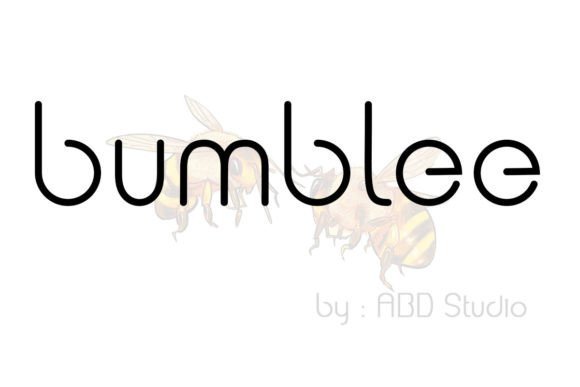
The Perfect Font to Elevate Your Designs
Have you ever been stuck on a design project, pouring over countless fonts, searching for the perfect one to bring your vision to life? You know that moment when everything clicks, and you finally find that elusive font that makes your design shine? For many designers, that moment is what makes all the hard work worth it.
Meet Bumblee Font, a minimalist and neat sans serif font that’s been the game-changer for many designers. Its clean lines and versatility make it a perfect match for a wide range of projects, from sleek business cards to elegant websites. With Bumblee Font, you can add a touch of sophistication and style to your designs, setting them apart from the crowd.
Whether you’re a seasoned designer or just starting out, Bumblee Font is a valuable addition to your toolkit. Its ease of use and adaptability make it a go-to choice for designers of all levels, and its ability to elevate even the simplest designs is unparalleled.
Bumblee Font Key Features
- Unique Characteristics: Bumblee Font features a distinctive rounded design with a playful, whimsical feel, making it ideal for children’s books, magazines, and other creative projects.
- Script and Style Options: Bumblee Font offers a range of script and style options, including bold, italic, and condensed variations, allowing designers to create a wide range of visual effects.
Bumblee Font Review
When I first laid eyes on the Bumblee Font, I was immediately drawn to its unique, playful vibe. ✨ The font has a fun, energetic feel that’s perfect for projects that need a bit of whimsy. I love how the font’s rounded edges and soft curves create a sense of approachability and friendliness. ✨
One of the things that really stood out to me about the Bumblee Font is its versatility. ✨ It’s available in a range of weights and styles, from light to bold, which makes it easy to use in a variety of contexts. Whether you’re designing a children’s book or a marketing campaign, the Bumblee Font is a great choice. ✨
While the Bumblee Font is certainly a standout, there are a few limitations to be aware of. ⚠️ For one, the font can be a bit difficult to read at smaller sizes, which may be a problem for projects that require a lot of fine print. ⚠️ Additionally, the font’s playful feel may not be suitable for all types of projects – for example, a serious news article or a formal business report may not be the best fit. ⚠️
Overall, I think the Bumblee Font is a great choice for designers who are looking for a fun, playful font to add some personality to their projects. While it may not be the best fit for every project, I think it’s a great addition to any designer’s toolkit. With its versatility and unique feel, the Bumblee Font is sure to add some excitement to any design. ✨
- Unique, playful vibe
- Available in a range of weights and styles
- Perfect for projects that need a bit of whimsy
- May not be suitable for all types of projects
- Can be difficult to read at smaller sizes